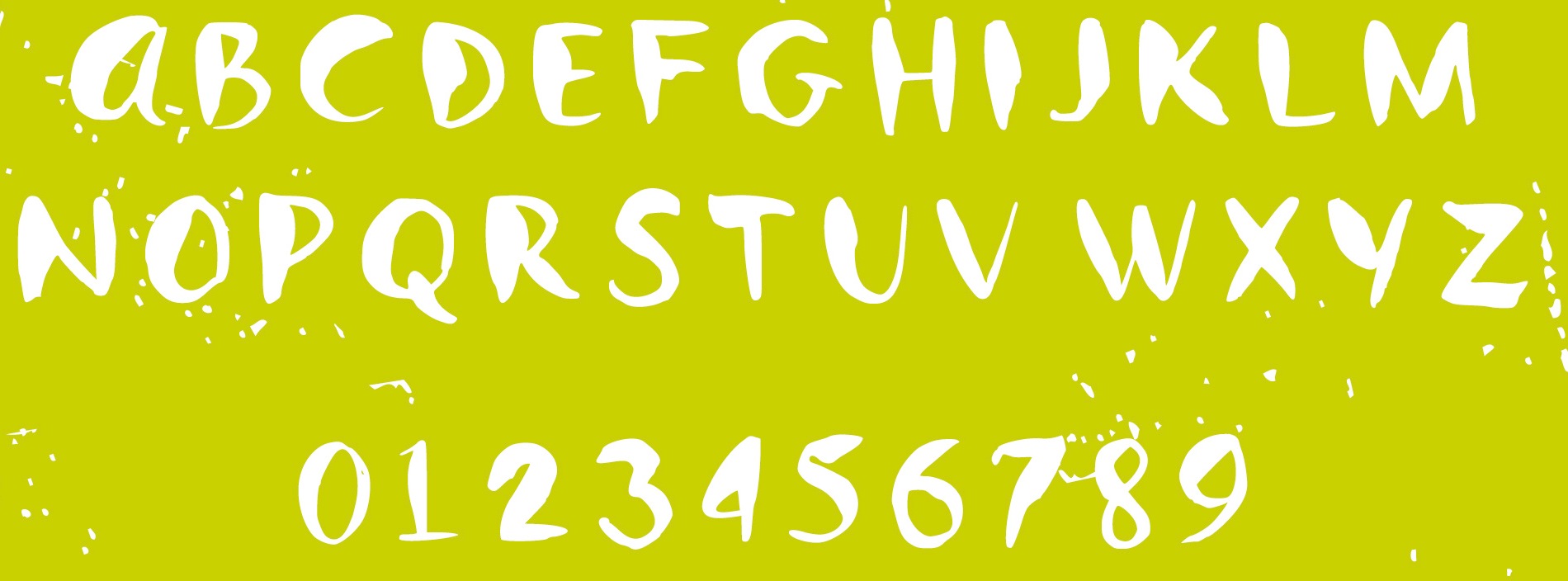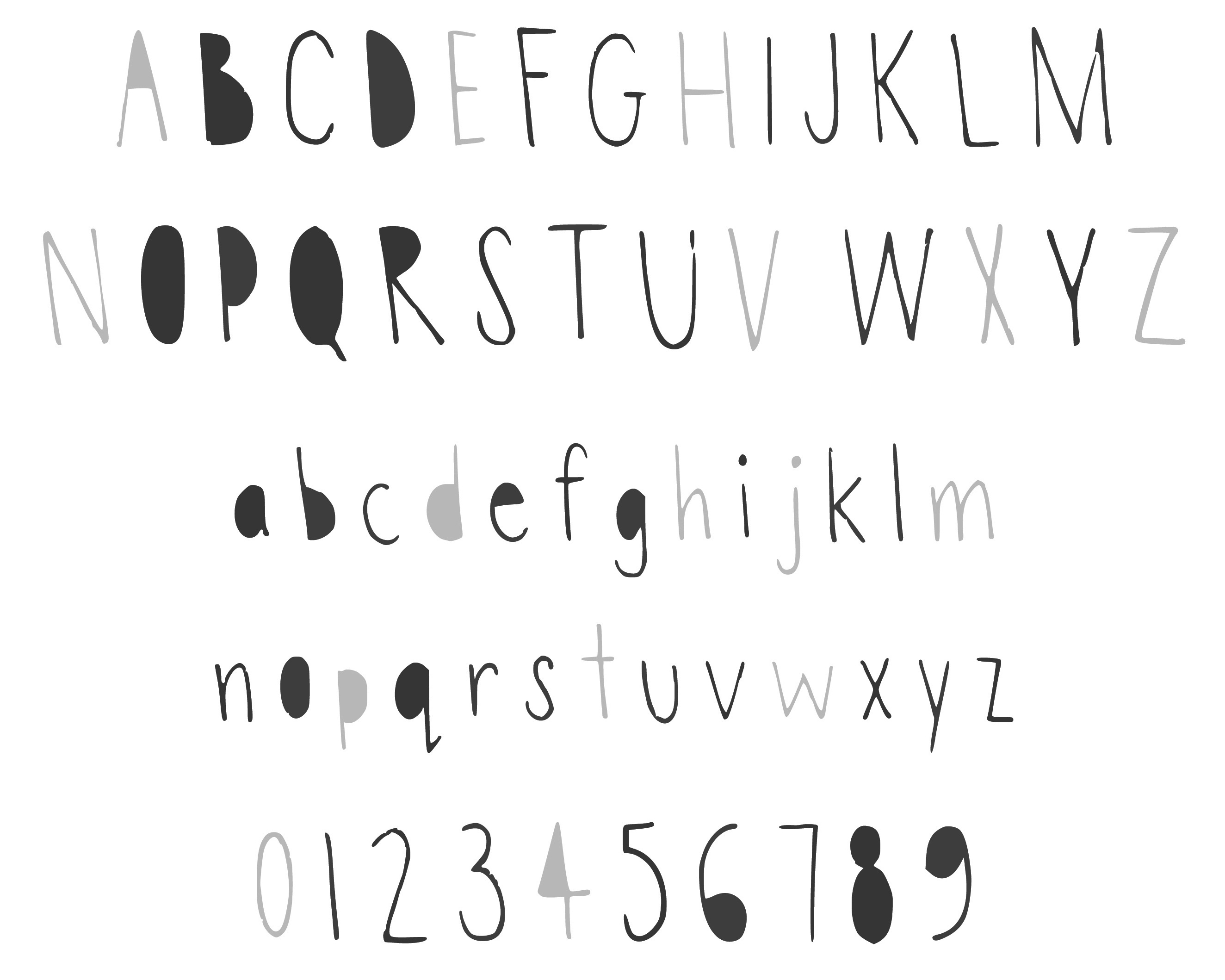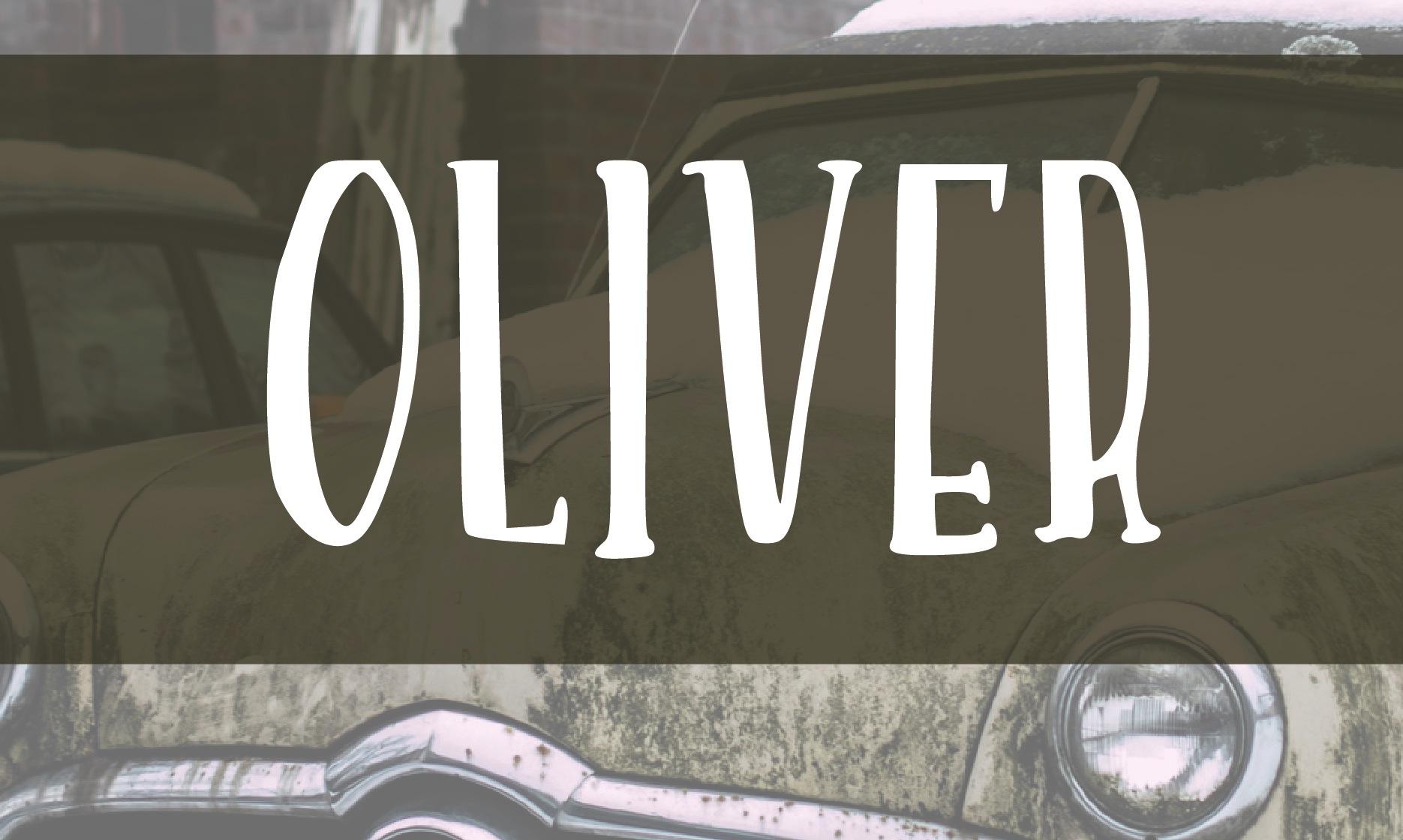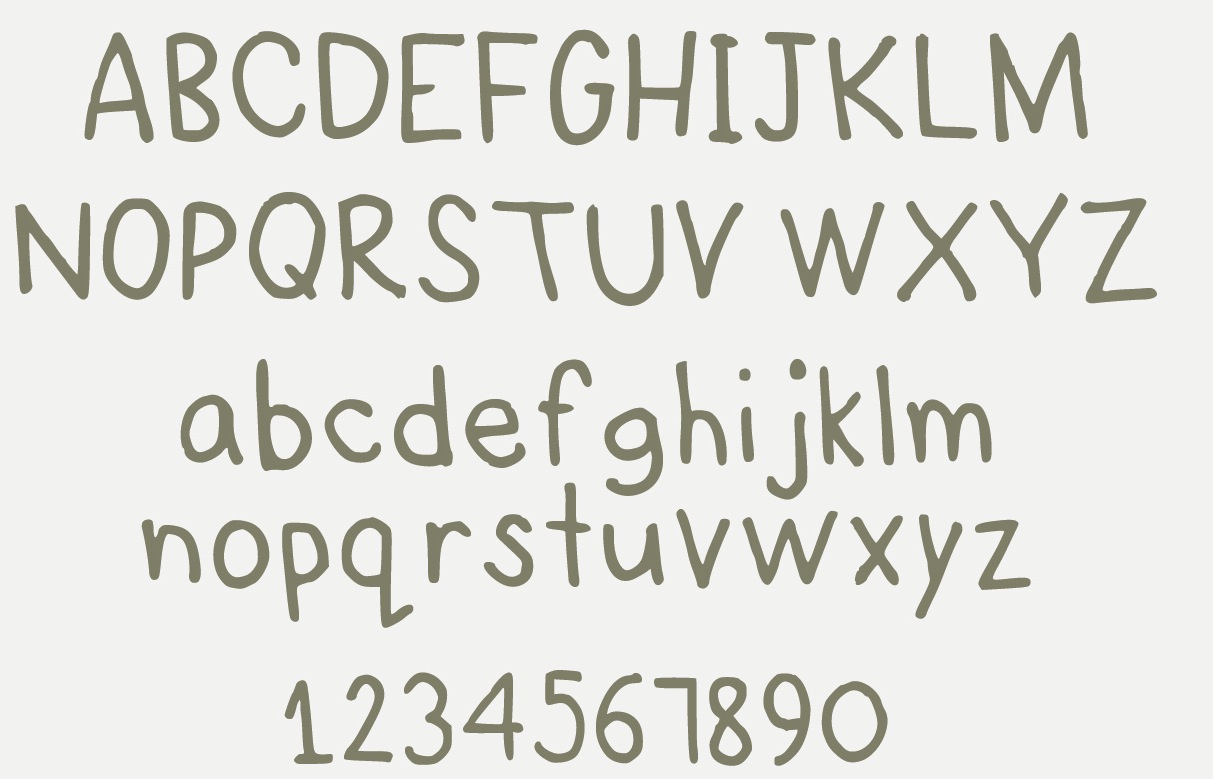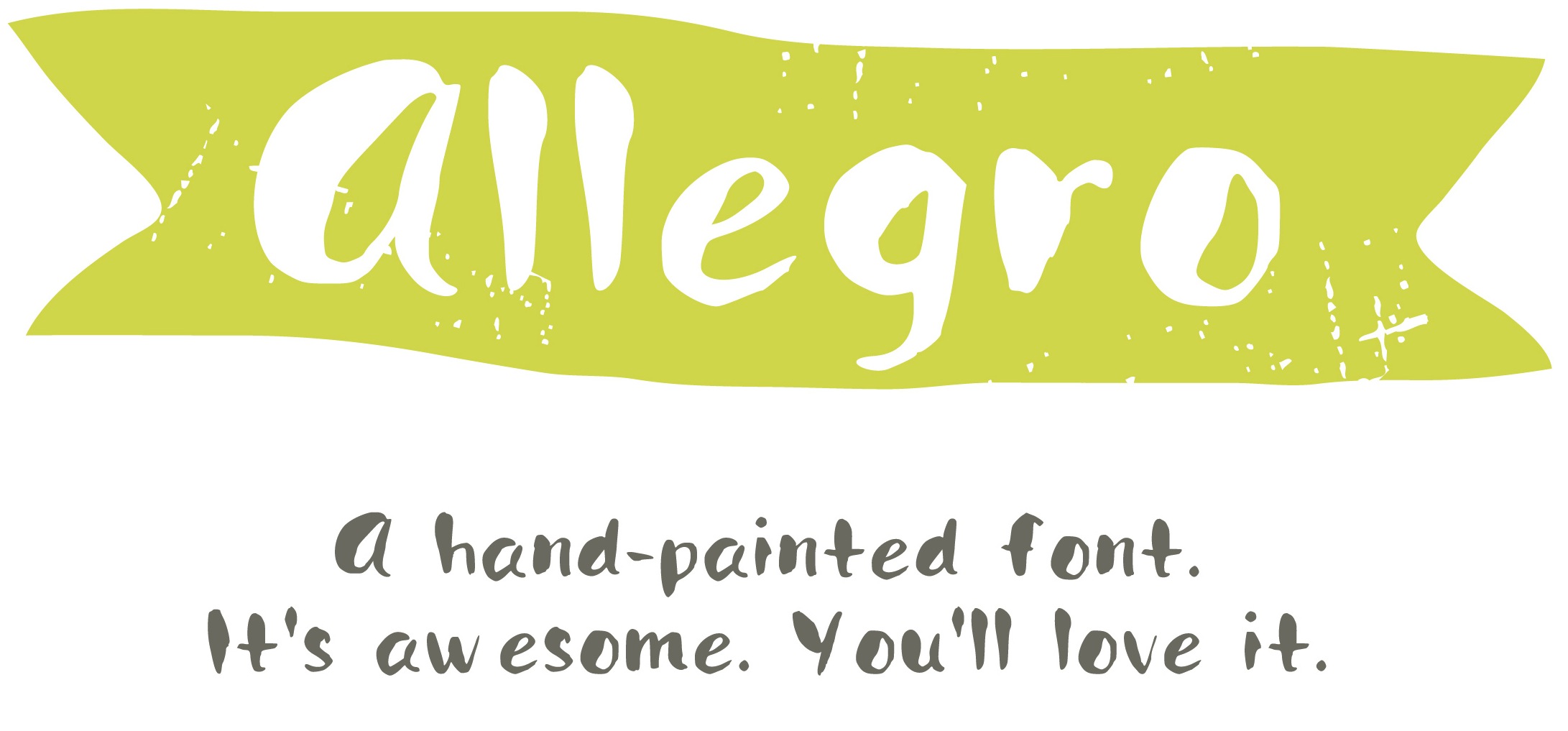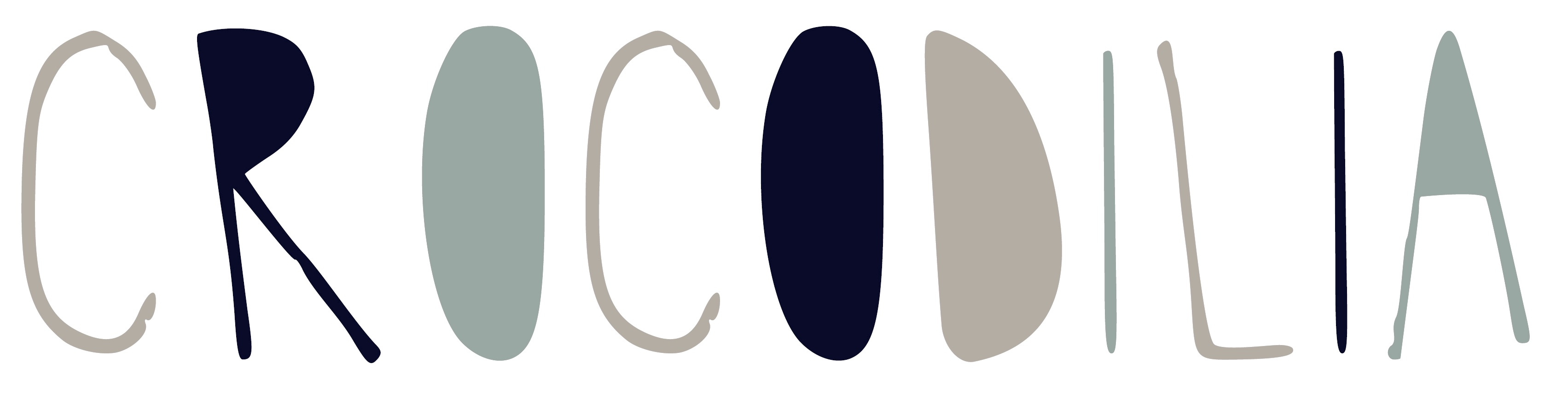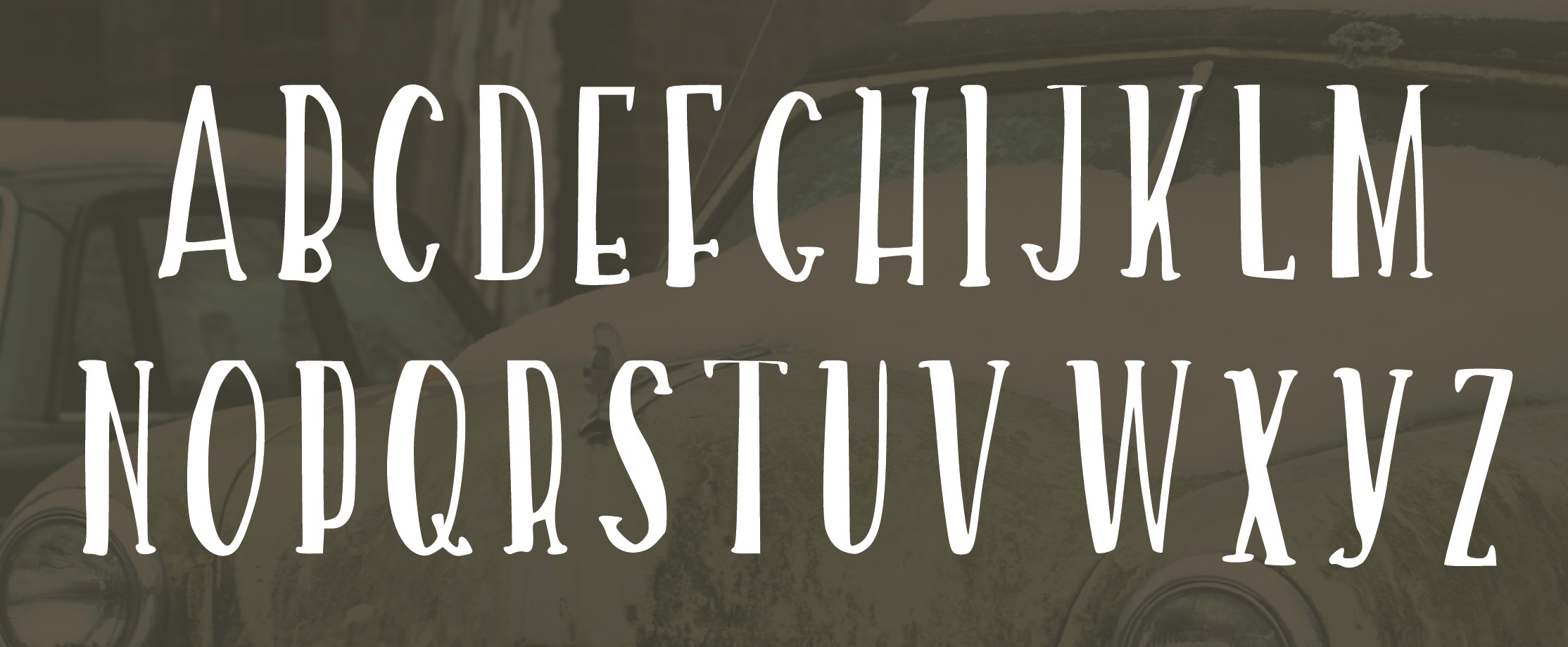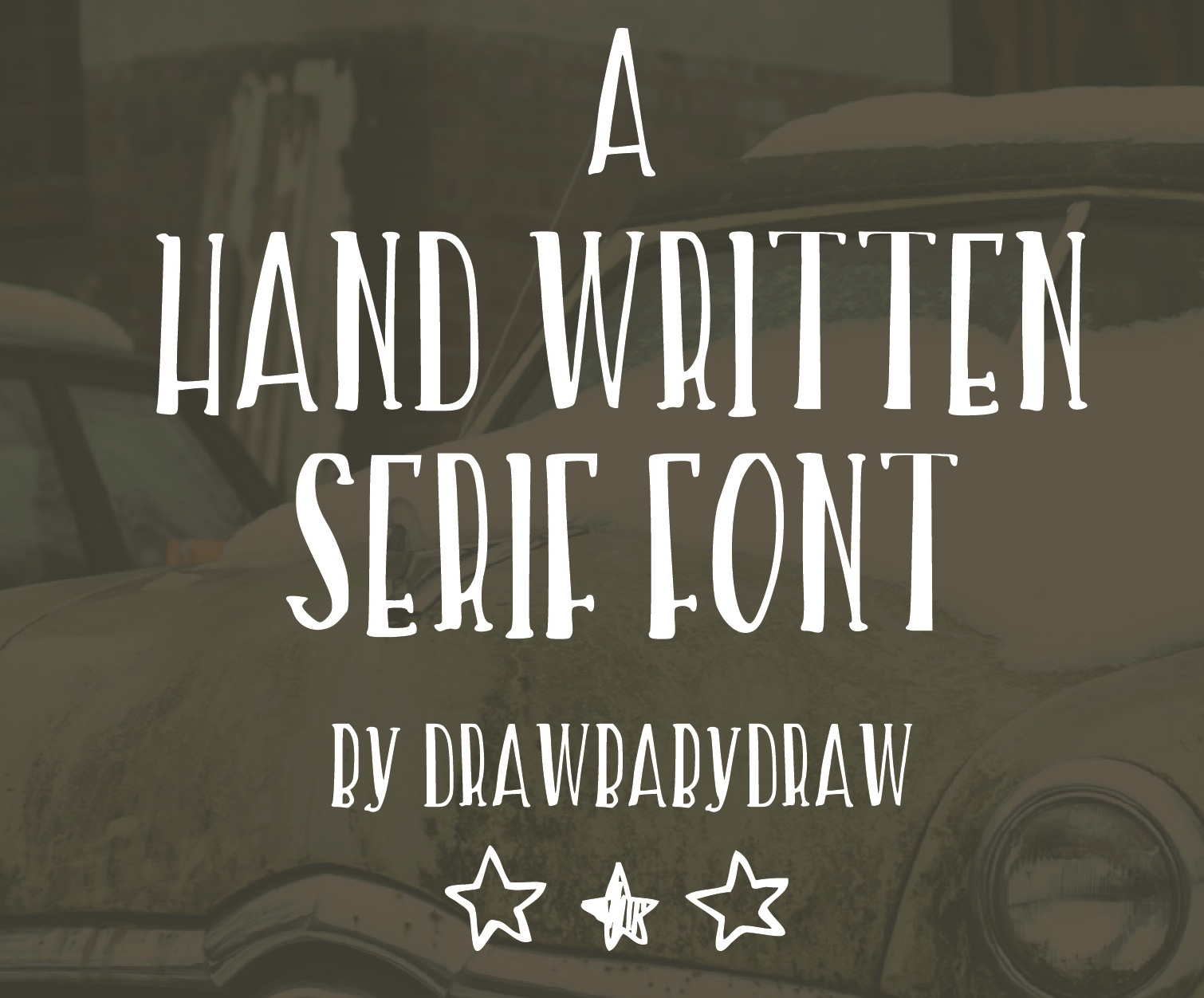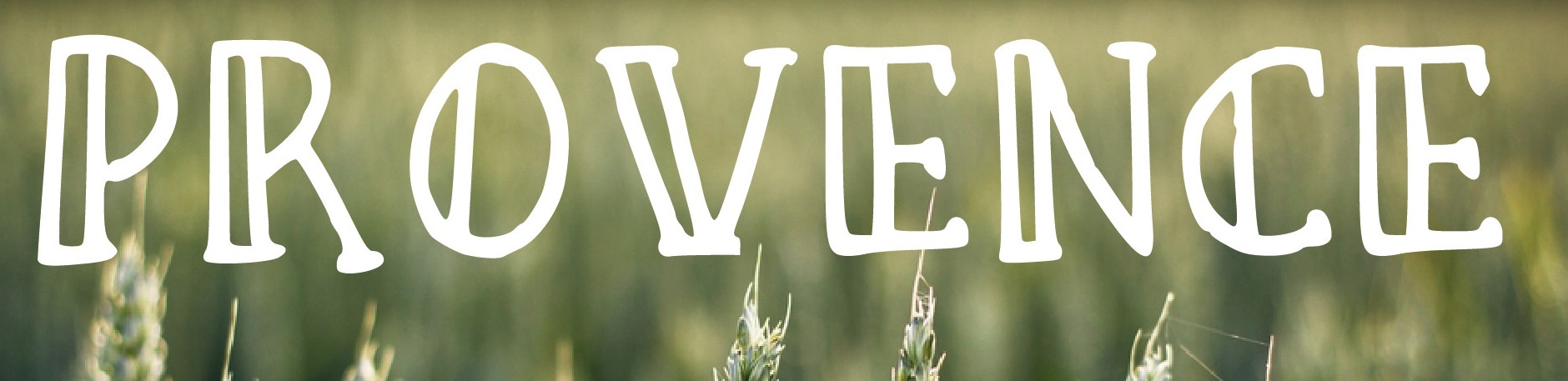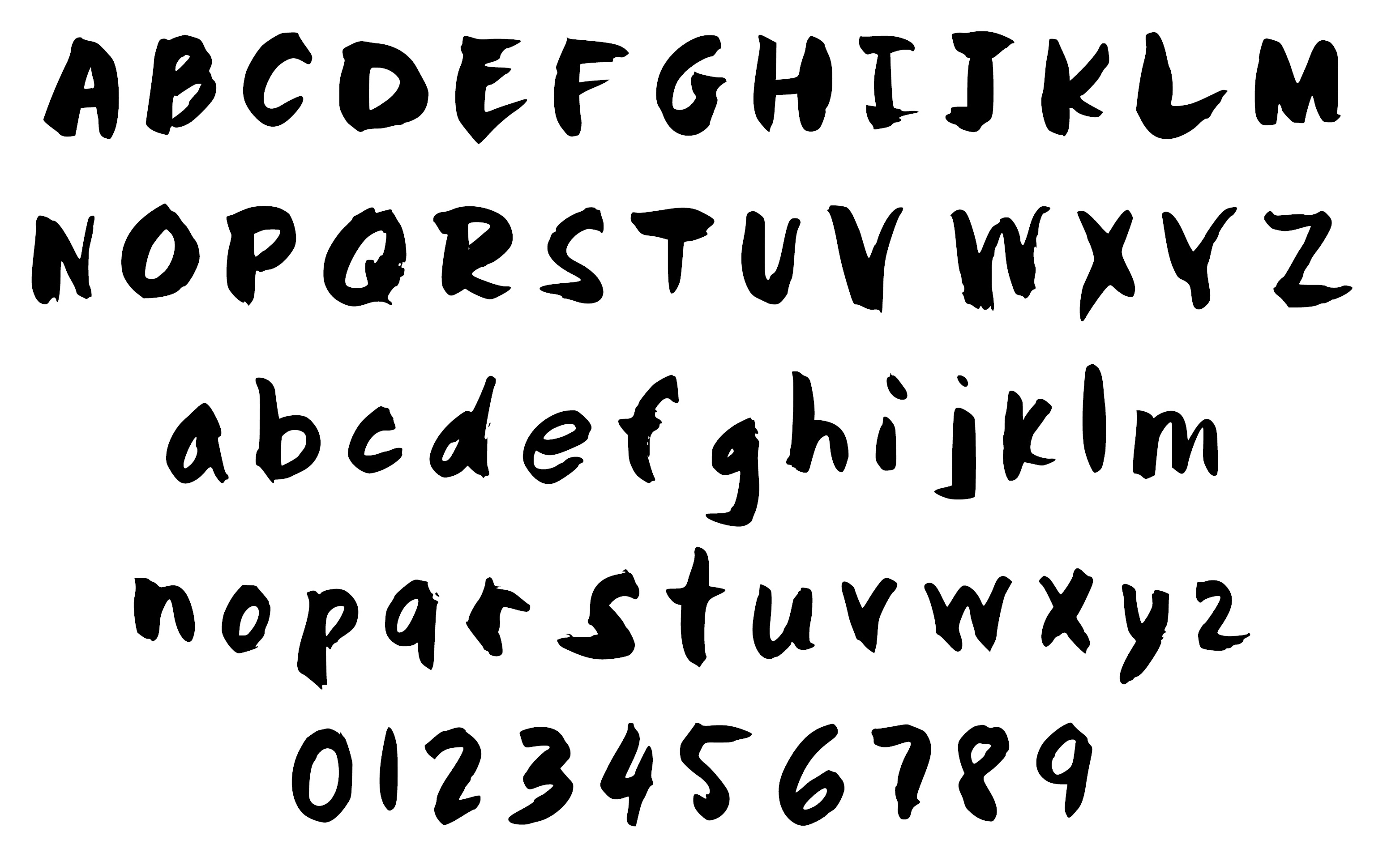
Shelly Lasto
Shelly Lasto, who operates as draw Baby Draw, created these commercial typefaces in 2014: Oliver (hand-drawn poster font), Provence, The Editor, Crocodilia (children's book font), Net WT, Awkward, Allegro, Barber Shop. |